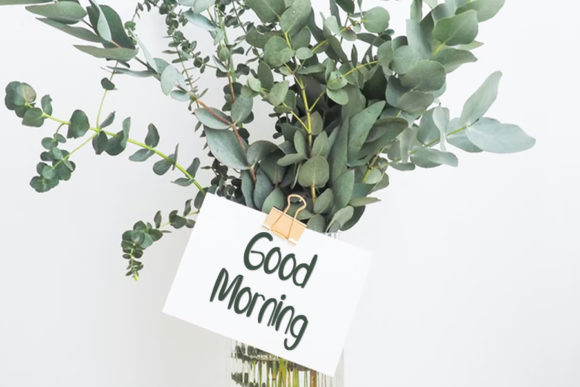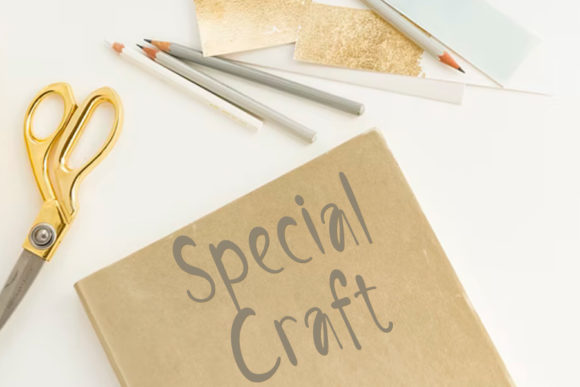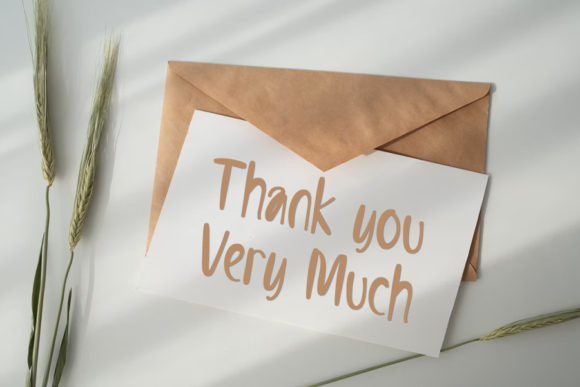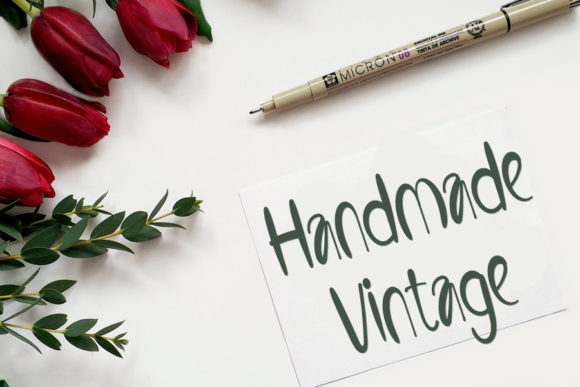
Handmade is a fresh and beautiful handwritten font. It looks great on various design purposes such as Youtube banners, cover logos, mockups, wedding invitations, Id cards, flyers, crafts. By using this font your business will progress and develop.